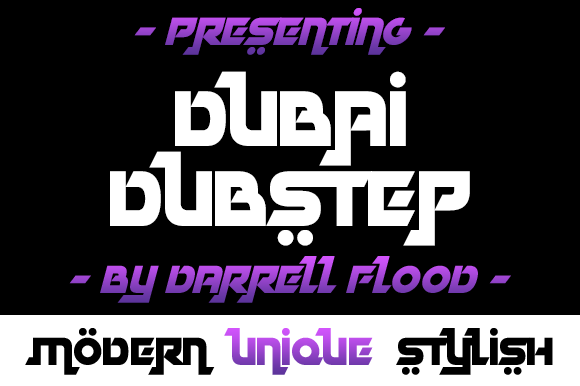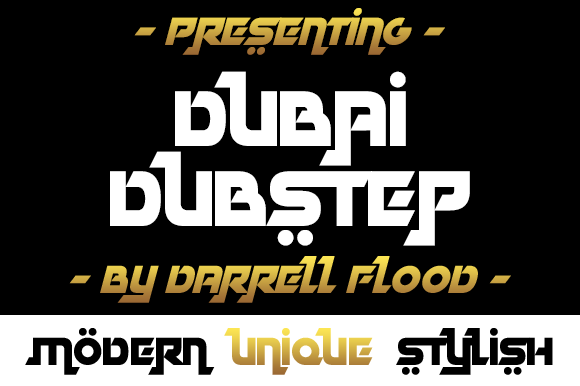
Dubai Dubstep Font: A Futuristic Arabic Display Font for Modern Designs
In the world of typography, fonts play a crucial role in conveying the message and tone of a design. For designers and crafters looking to add a unique and modern touch to their projects, the Dubai Dubstep Font is an excellent choice. This eye-catching display font is inspired by the futuristic and sleek architecture of Dubai, combined with the energetic and edgy vibes of dubstep music.
What is Dubai Dubstep Font?
Dubai Dubstep Font is a modern, Arabic-style display font that is perfect for tech, science, and action themes that require a futuristic touch. The font features a unique blend of Arabic and Latin characters, making it an excellent choice for designers looking to add an exotic and edgy flair to their designs. The font’s sleek and futuristic design makes it ideal for use in a variety of applications, including posters, flyers, brochures, and digital media.
Key Features of Dubai Dubstep Font
- Unique and Modern Design: The Dubai Dubstep Font features a one-of-a-kind design that is both modern and futuristic. The font’s sleek lines and curves make it perfect for designs that require a cutting-edge look.
- Arabic Style: The font is inspired by traditional Arabic typography, but with a modern twist. The result is a font that is both authentic and innovative.
- Multilingual Support: The Dubai Dubstep Font supports both Arabic and Latin languages, making it an excellent choice for designers working on multilingual projects.
- High-Quality Vectors: The font is designed with high-quality vectors, ensuring that it remains crisp and clear even at large sizes.
Use Cases for Dubai Dubstep Font
The Dubai Dubstep Font is versatile and can be used in a variety of applications, including:
- Posters and Flyers: The font’s bold and eye-catching design makes it perfect for posters and flyers that require a striking visual impact.
- Digital Media: The font is ideal for use in digital media, including social media graphics, video game titles, and mobile app icons.
- Brochures and Catalogs: The font’s modern and sleek design makes it an excellent choice for brochures and catalogs that require a professional and cutting-edge look.
- Logos and Branding: The Dubai Dubstep Font can be used to create unique and memorable logos and branding materials that require a futuristic and edgy touch.
Tips for Using Dubai Dubstep Font
To get the most out of the Dubai Dubstep Font, here are some tips to keep in mind:
- Use it Sparingly: The font’s bold and eye-catching design makes it best suited for use in headlines and titles. Use it sparingly to avoid overwhelming the reader.
- Pair it with a Simple Font: Pair the Dubai Dubstep Font with a simple and clean font to create visual contrast and make your design more readable.
- Experiment with Colors: The font’s sleek and modern design looks great with bold and bright colors. Experiment with different color schemes to find the one that works best for your design.
The Dubai Dubstep Font is an excellent choice for designers and crafters looking to add a unique and modern touch to their projects. With its futuristic and sleek design, multilingual support, and high-quality vectors, this font is perfect for a variety of applications, from posters and flyers to digital media and logos. By following the tips outlined above, you can get the most out of the Dubai Dubstep Font and create stunning designs that are sure to impress.